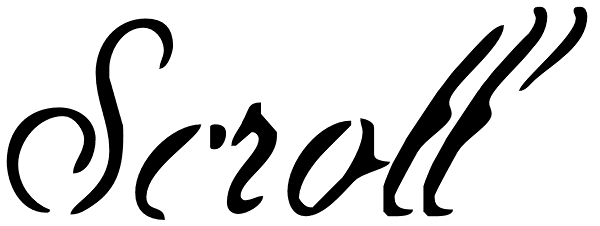
Scroll
Earlier this year, my eyes fell upon a discarded wedding invitation on the sidewalk. A closer look at it revealed that it had at one point been victimized by rain. Some of the fancy script letters were not quite broken, but sort of melted and...